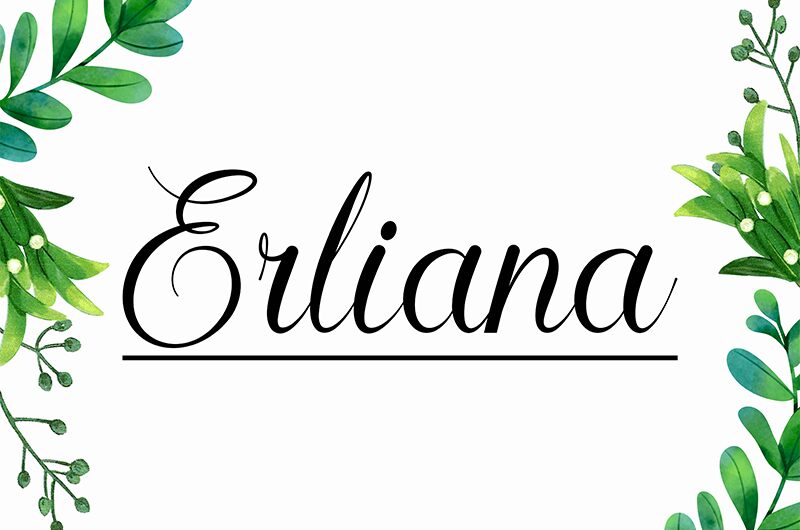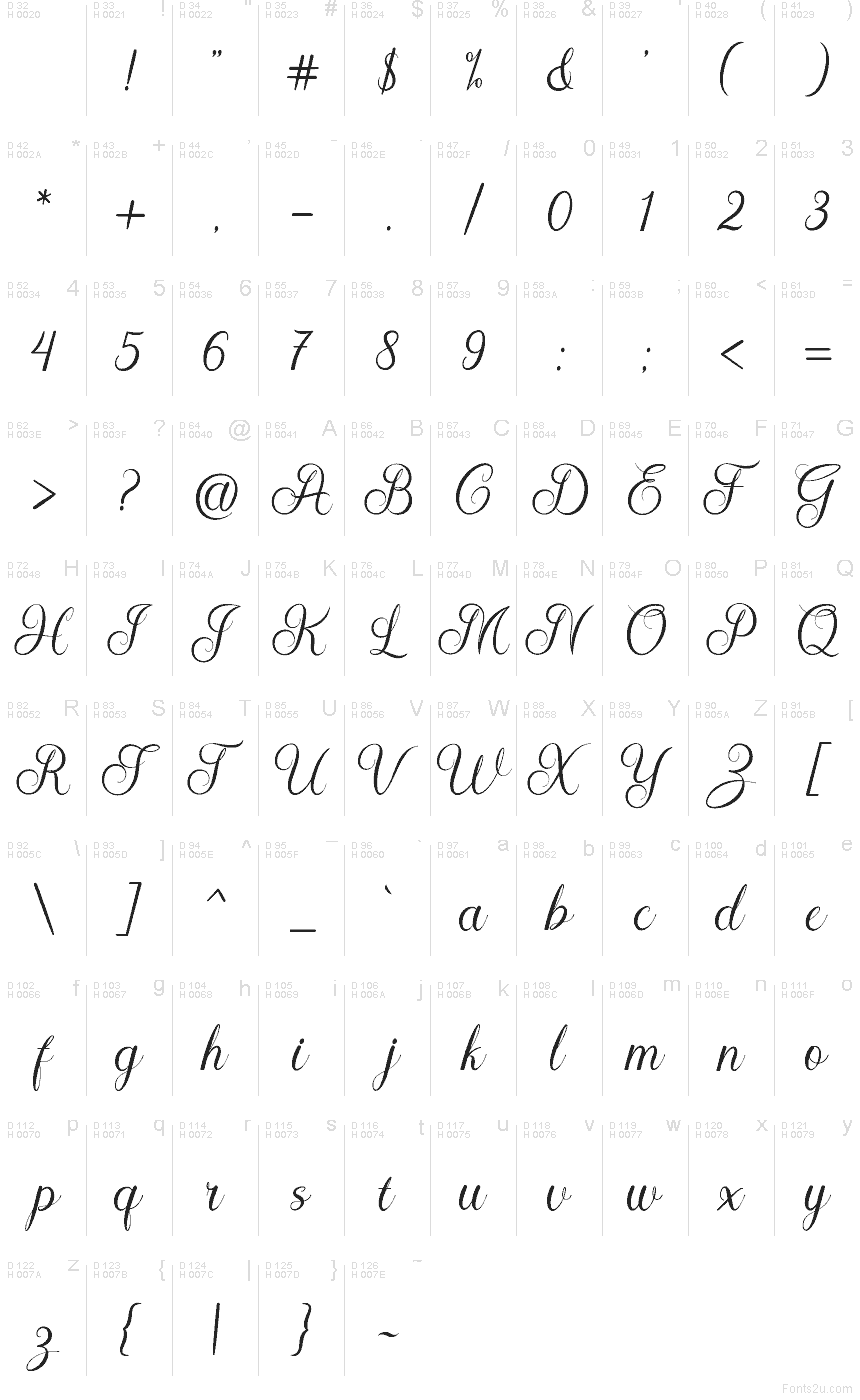
Erliana Regular
Erliana font by Aan Kijing Wahono is a free calligraphy typeface that drapes words in flowing, ink-brush elegance. Its long, sweeping entry strokes, gentle slant, and graceful loops give it a romantic, handwritten feel—like a carefully penned signature on fine stationery. The letters connect with a smooth rhythm, so lines of text feel like one continuous, silky ribbon rather than stiff individual words.
Using Erliana, your text instantly takes on a soft, celebratory mood that shines on wedding invitations, save-the-dates, bridal shower cards, boutique logos, product packaging, and quote graphics on social media. This free font works beautifully when set large so its curves can breathe; pair it with a clean, minimalist sans serif for body text to keep layouts elegant and readable.